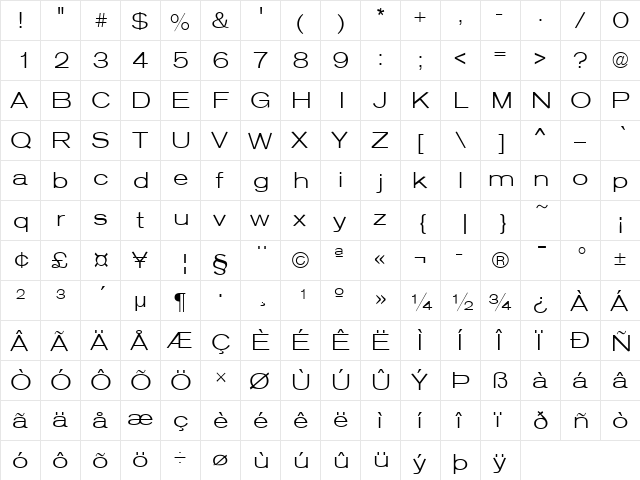
Sage Extended Light Regular
Design Context for Sage Extended Light Typeface
Sage Extended Light is a composed and adaptable typeface that performs quietly and consistently across a wide range of design contexts. The delicate stroke weight brings airiness and refinement to layouts.